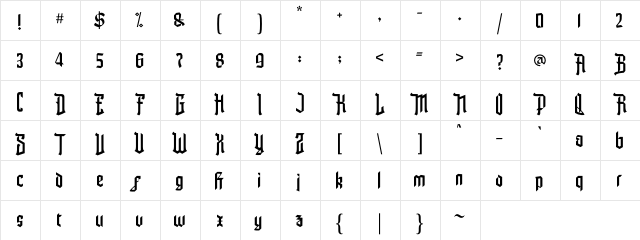
The Youthic Regular
| Foundry | Blackerning |
| Designer | Taufiqurrohman Nadri |
Design Context for The Youthic Typeface
The Youthic is a composed and adaptable typeface that performs quietly and consistently across a wide range of design contexts.